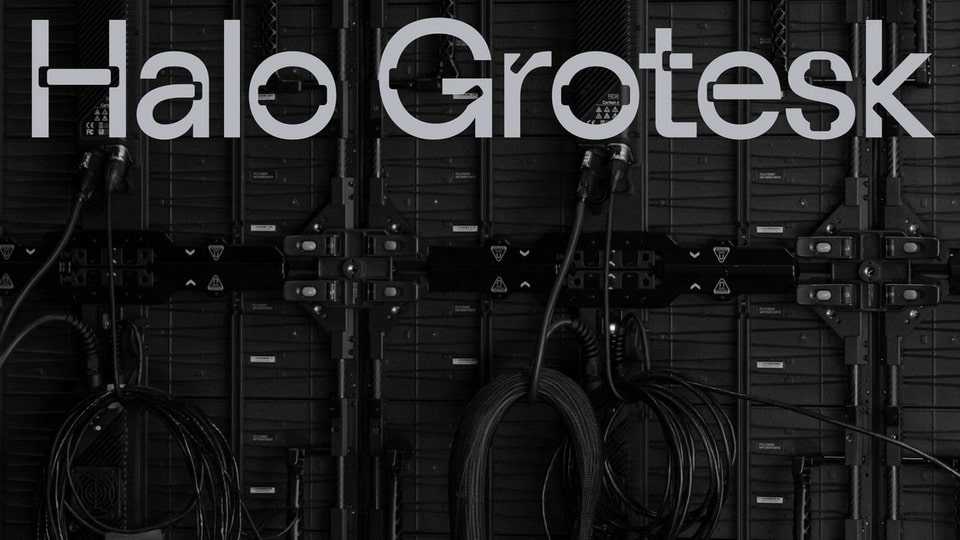
Download Halo Grotesk font, a display typeface inspired by various types of connections. Halo Grotesk is built on the principle of the manifestation of stroke joints in the font.
Designer: Roman Bobkov